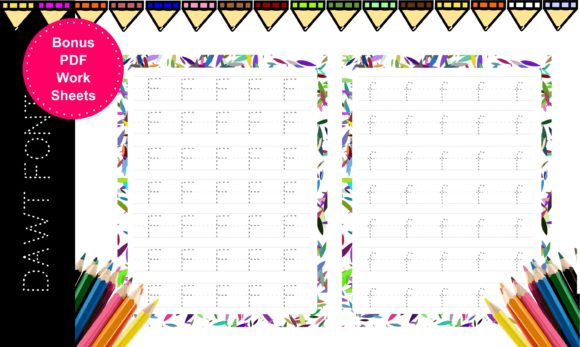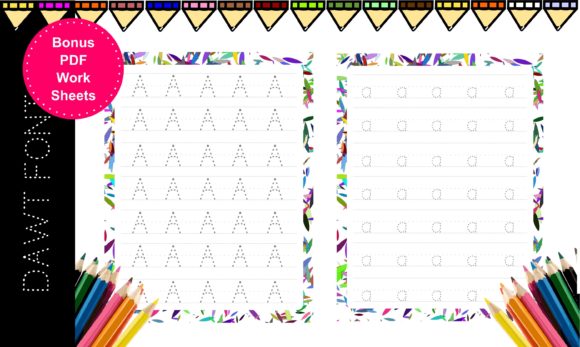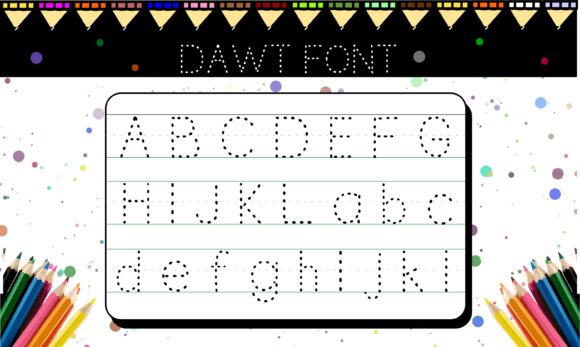
Dawt Font: The Ultimate Decorative Dotted Font for Stunning Designs
Are you tired of using the same old fonts for your designs? Look no further than Dawt Font, a unique and interesting decorative dotted font that’s sure to capture your heart. With its incredibly versatile style, Dawt Font is perfect for creating spectacular designs that stand out from the crowd.
What is Dawt Font?
Dawt Font is a decorative dotted font that’s designed to add a touch of elegance and sophistication to your designs. Its unique dotted style gives it a distinctive look that’s both modern and timeless. Whether you’re a designer, crafter, or DIY enthusiast, Dawt Font is a must-have in your font collection.
Features of Dawt Font
So, what makes Dawt Font so special? Here are just a few of its key features:
- Unique Dotted Style: Dawt Font’s dotted style is unlike anything you’ve seen before. Its intricate dots create a beautiful, textured look that’s perfect for adding visual interest to your designs.
- Versatile: Dawt Font is incredibly versatile, making it suitable for a wide range of design projects, from invitations and greeting cards to posters and social media graphics.
- Elegant and Sophisticated: Dawt Font’s elegant and sophisticated style makes it perfect for designs that require a touch of luxury and refinement.
Uses of Dawt Font
Dawt Font is perfect for a wide range of design projects, including:
- Invitations and Greeting Cards: Add a touch of elegance and sophistication to your invitations and greeting cards with Dawt Font.
- Posters and Flyers: Create eye-catching posters and flyers with Dawt Font’s unique dotted style.
- Social Media Graphics: Use Dawt Font to create stunning social media graphics that stand out from the crowd.
- Crafting and Scrapbooking: Dawt Font is perfect for crafters and scrapbookers who want to add a touch of elegance and sophistication to their projects.
Tips for Using Dawt Font
Here are a few tips for using Dawt Font to create stunning designs:
- Experiment with Different Sizes: Dawt Font looks great in a variety of sizes, so don’t be afraid to experiment and find the perfect size for your design.
- Pair with Other Fonts: Dawt Font pairs well with a variety of other fonts, so try pairing it with a bold font for a striking contrast.
- Use it for Headings and Titles: Dawt Font is perfect for headings and titles, where its unique dotted style can really make an impact.